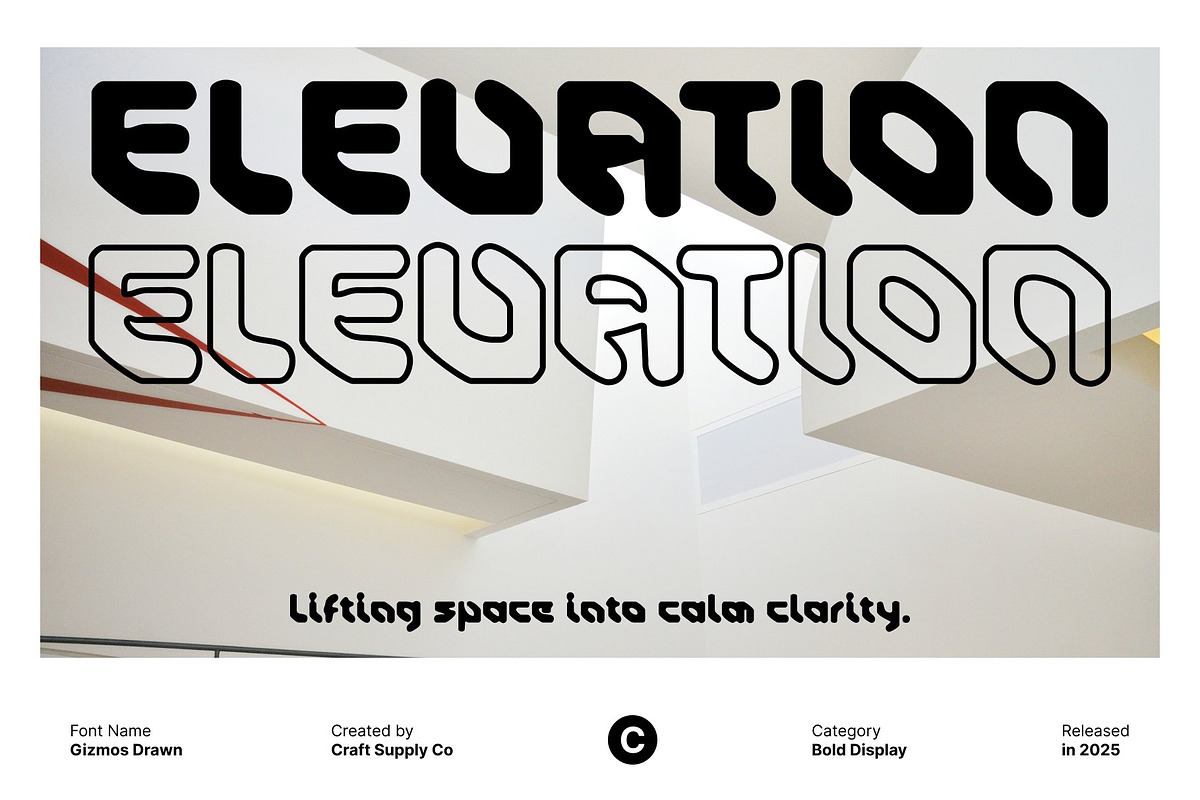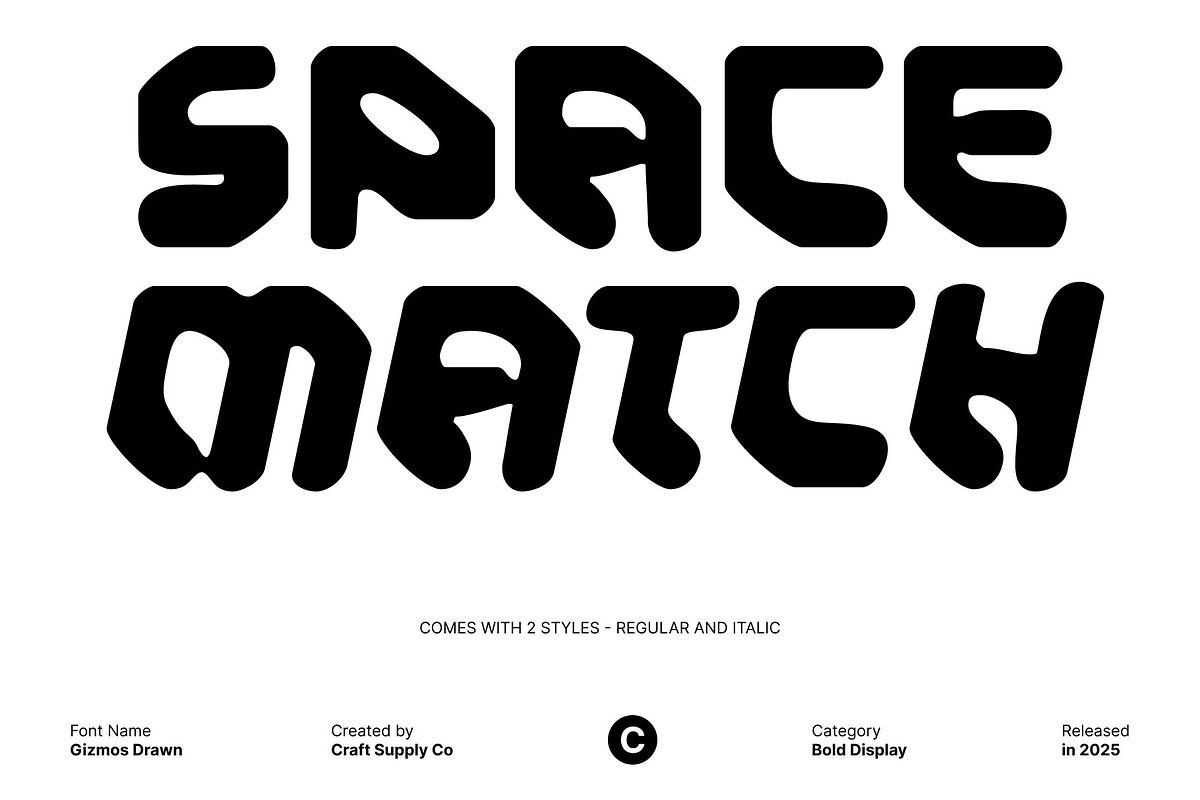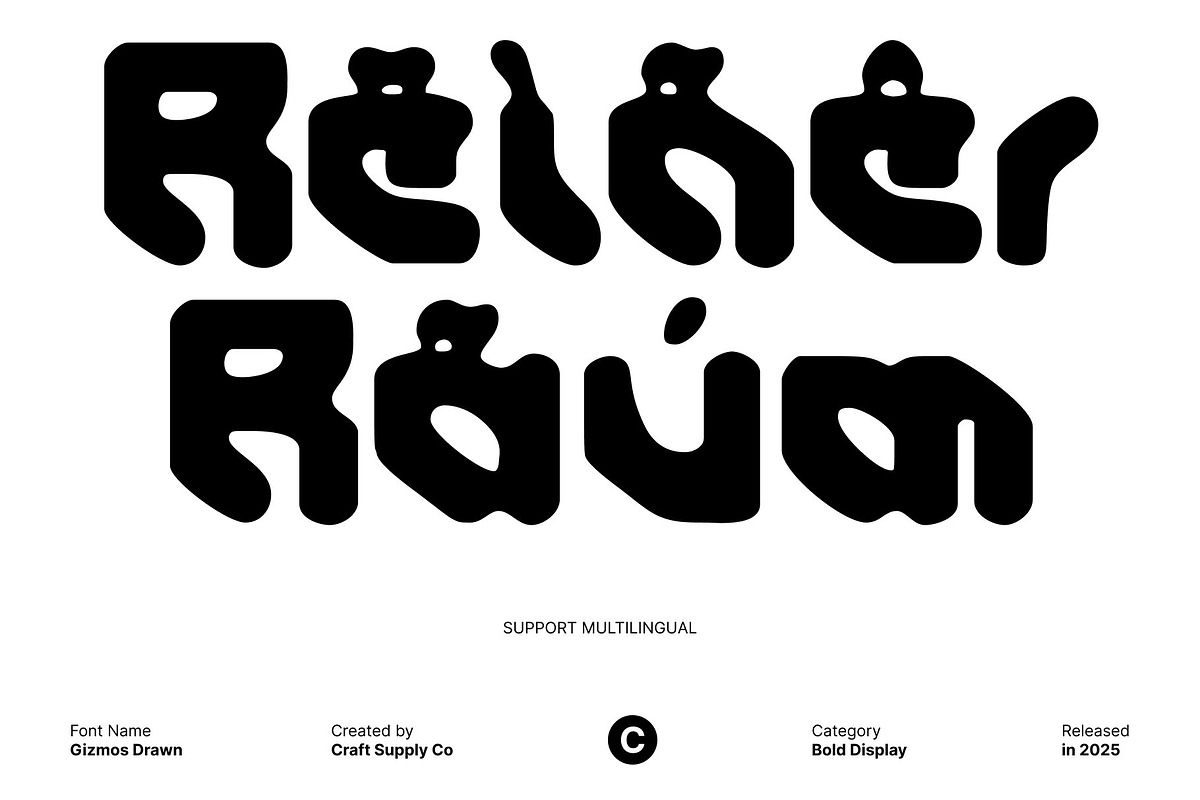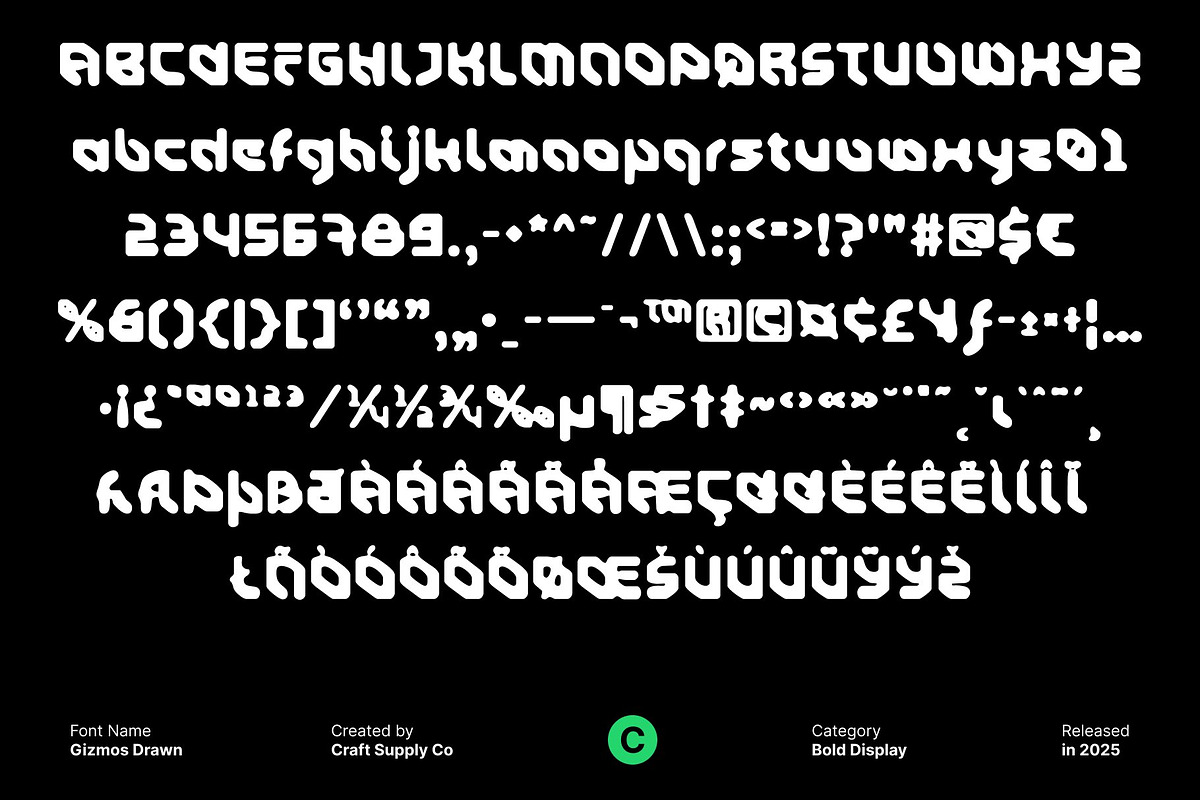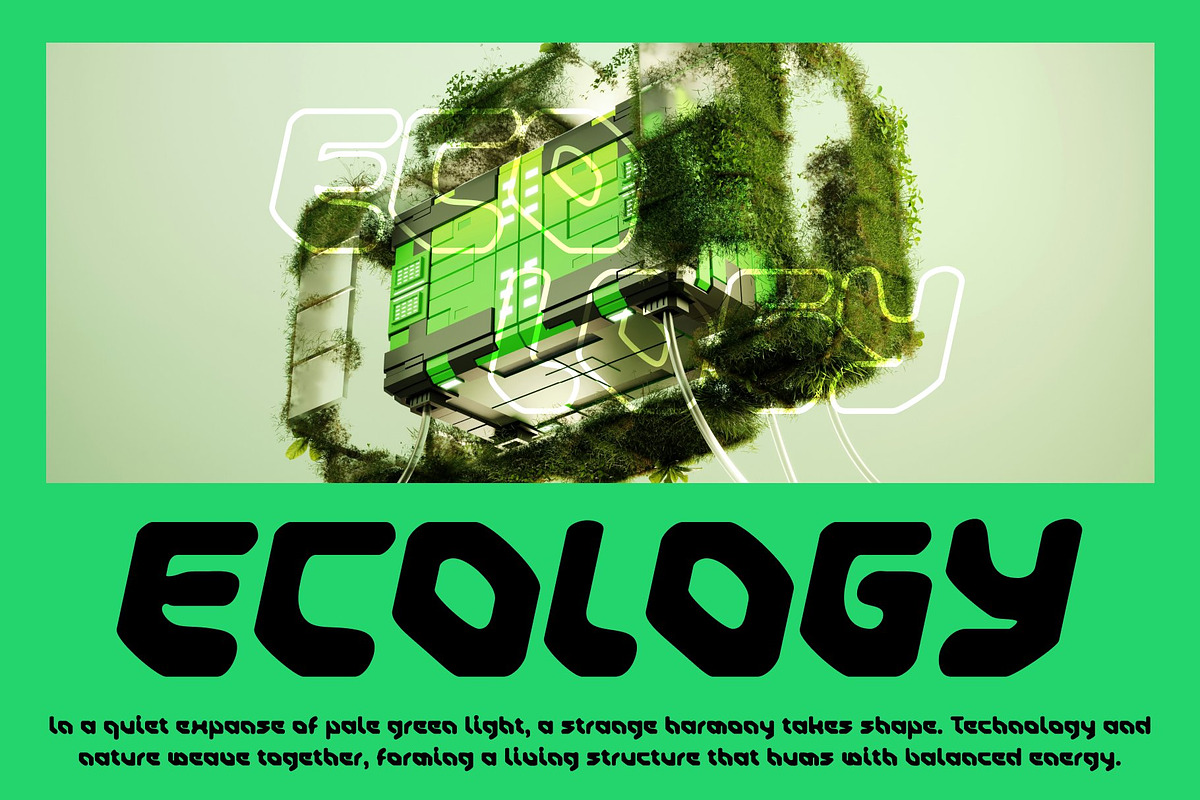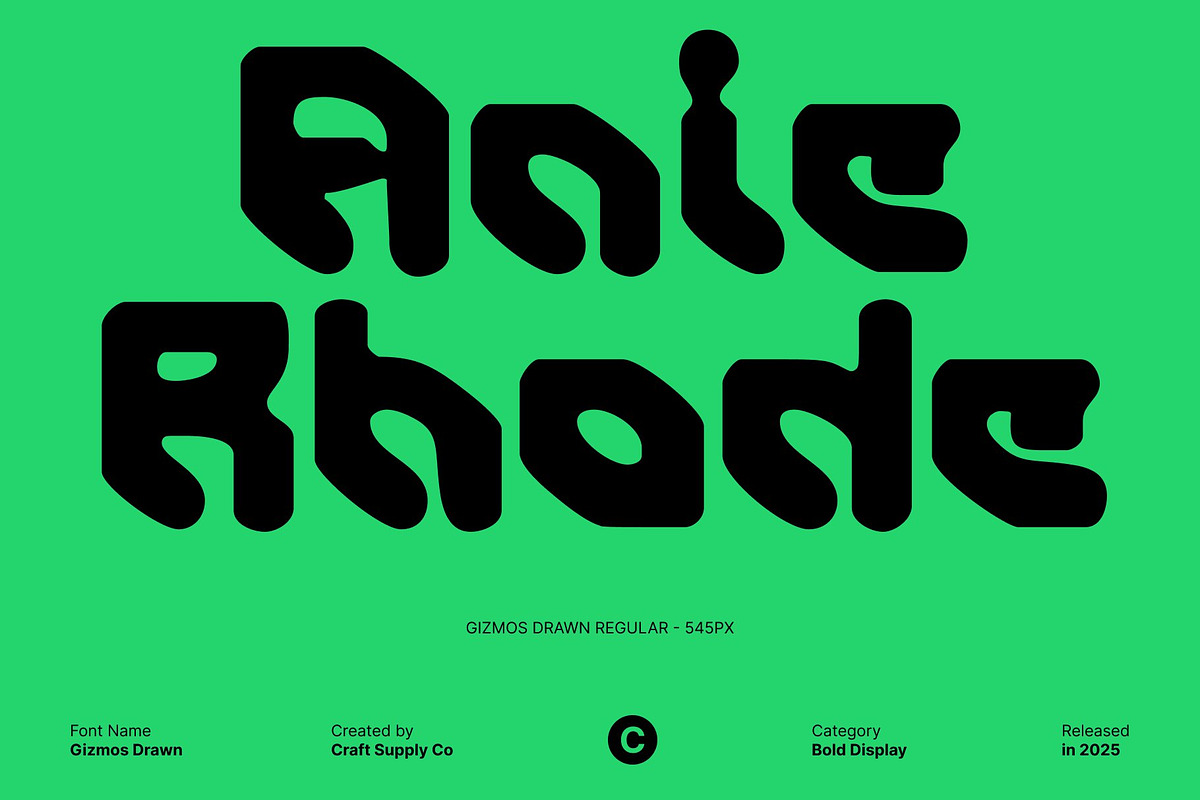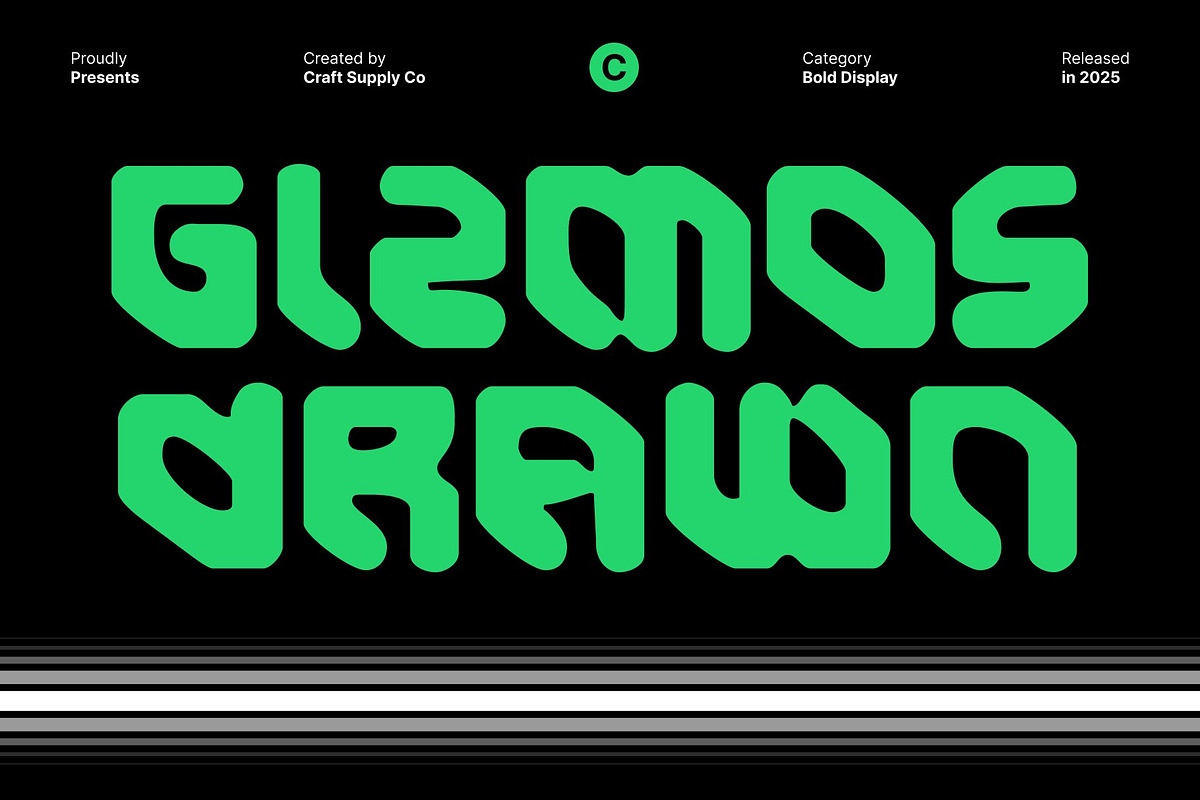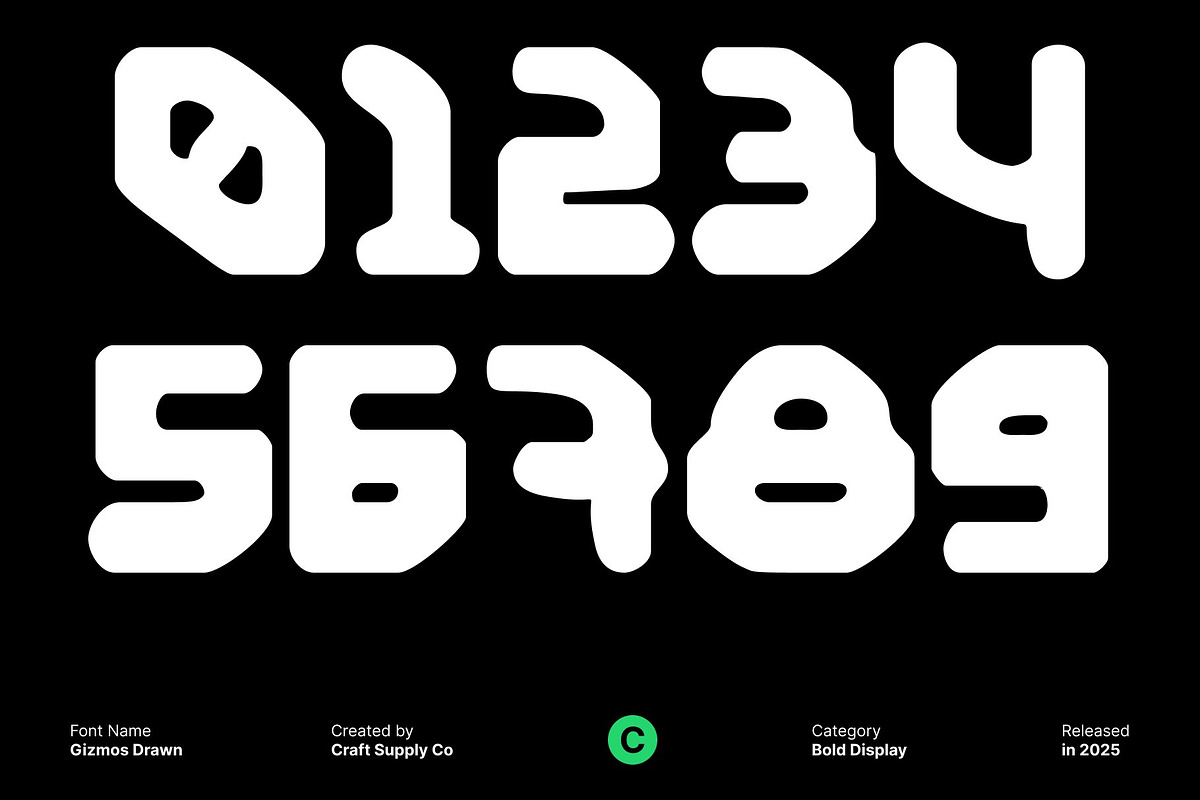
Gizmos Drawn
Gizmos Drawn – Futuristic Sans Serif with Textured Techno Character
Bold and Futuristic Letterforms This is a futuristic sans serif font designed to convey modern energy and high-impact presence. Its bold and striking letterforms command attention, offering a clean yet powerful aesthetic that suits contemporary design projects. The geometric precision and techno-inspired shapes create a sense of forward-thinking style, making it ideal for cutting-edge visual communications.
Drawn Effect for Character and Texture The drawn effect adds a handcrafted, textured layer to this font, infusing each letter with unique character and personality. This artistic touch transforms clean, futuristic shapes into dynamic, eye-catching elements. The texture amplifies the techno aesthetic, giving the font a distinctive, expressive quality that enhances digital and print designs alike.
Perfect for Branding, Logos, and Posters This font thrives in display applications that demand visibility and style. It is perfect for branding, logo design, poster layouts, and promotional materials where a bold, contemporary impact is needed. The combination of futuristic geometry and textured detail ensures designs remain striking, memorable, and visually engaging.
A Versatile Display Font with Modern Edge By merging modern techno aesthetics with expressive, hand-drawn texture, this font offers versatility and originality. It balances precision with creativity, making it suitable for branding, editorial projects, digital media, and more.
- Gizmos Drawn Regular
- Gizmos Drawn Italic